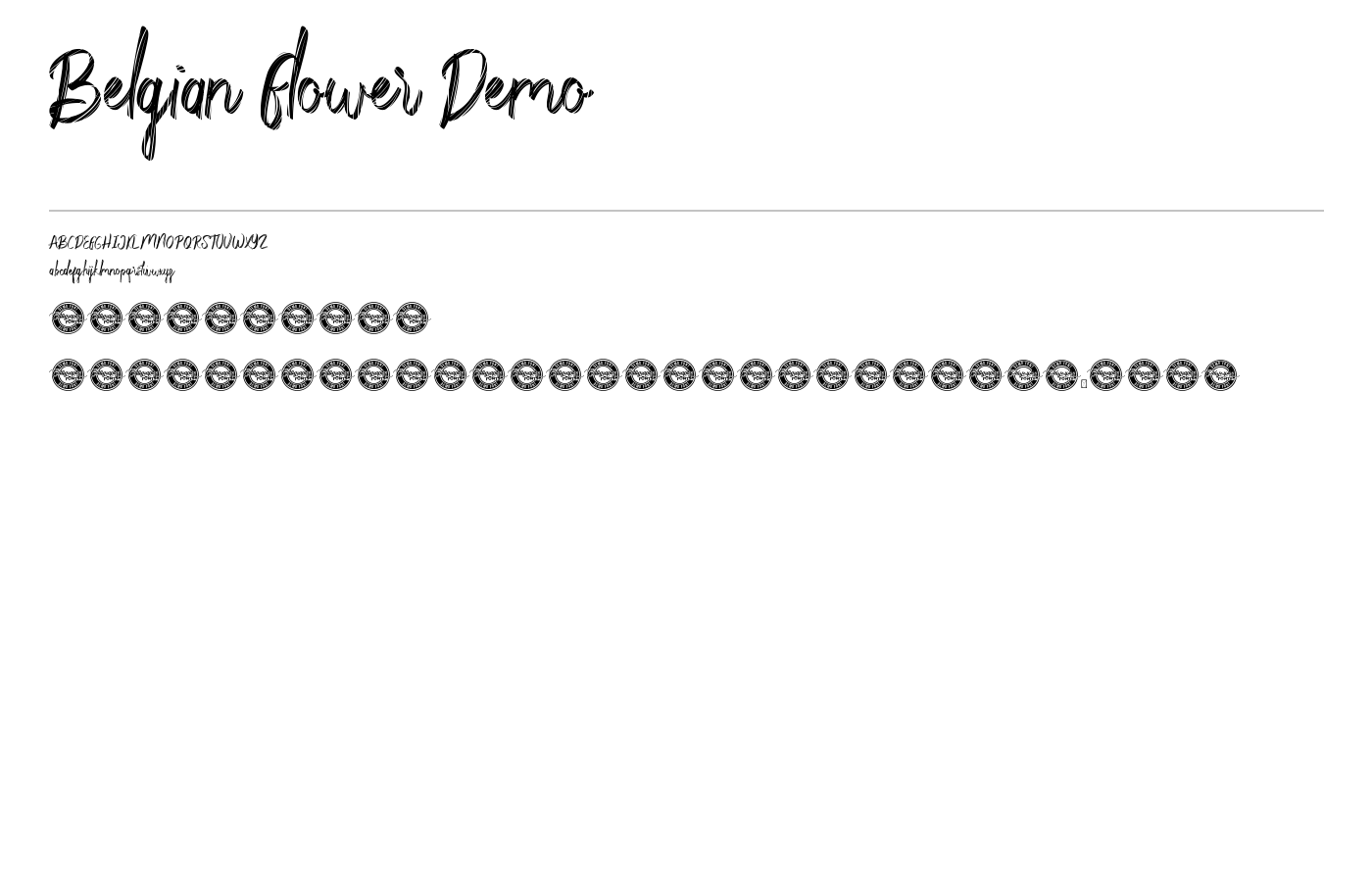
Belgian Flower Demo is a lively handwritten script font featuring medium weight and a natural, flowing stroke that mimics brush calligraphy. Its tall x-height and playful, slightly irregular letterforms give it a casual, artistic feel, making it ideal for creative branding, invitations, and expressive headlines. This font works well where a personal, friendly touch is desired, adding charm and warmth to designs.
Belgian Flower Demo Font
About Belgian Flower Demo Font